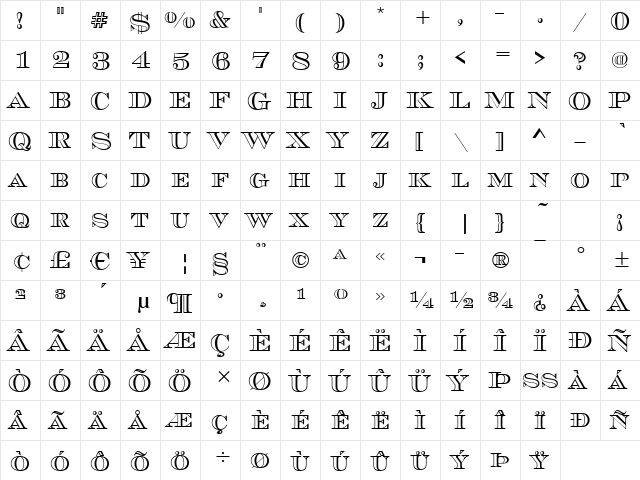
Maurice Regular
Design Context for Maurice Typeface
Maurice offers clean, dependable letterforms without strong stylistic allegiance, making it a practical choice for designers who need flexibility.